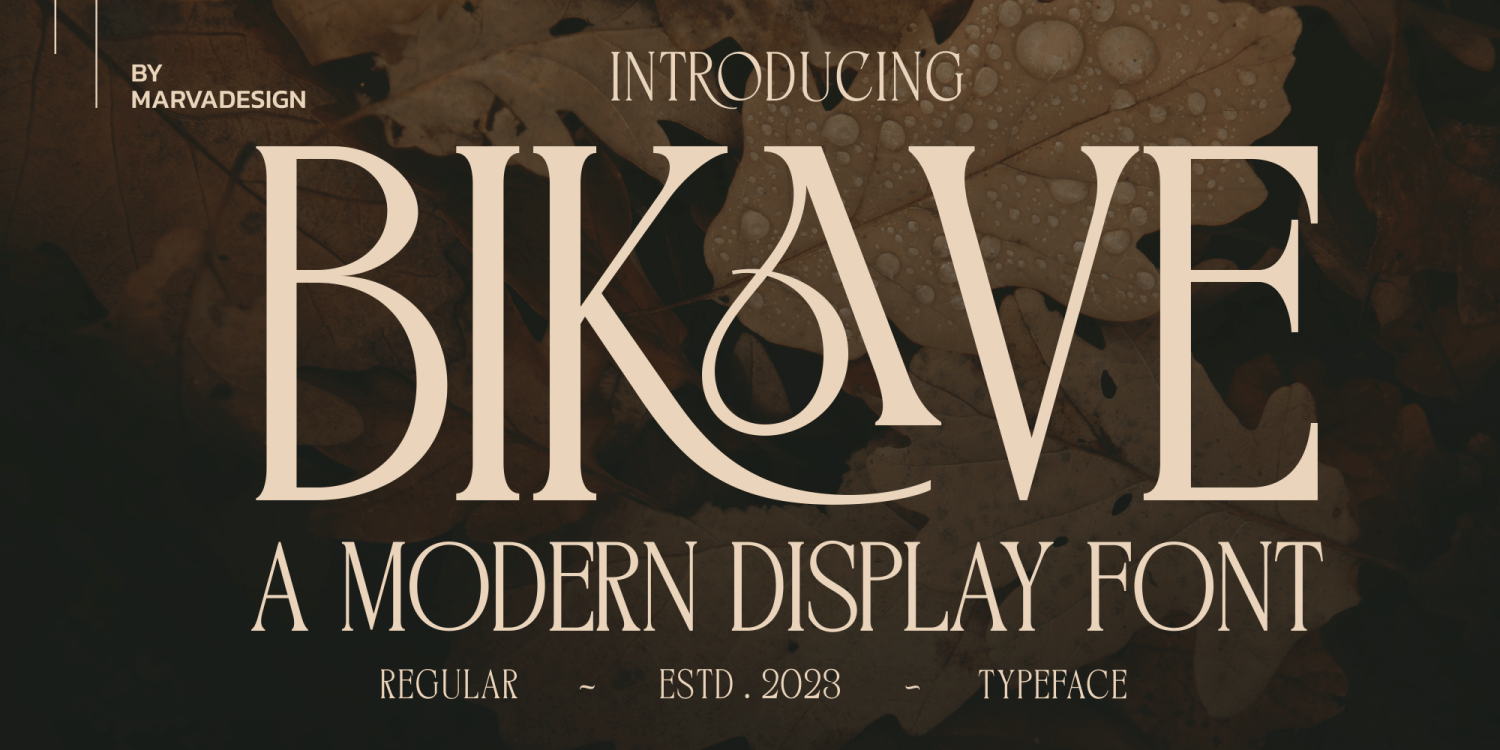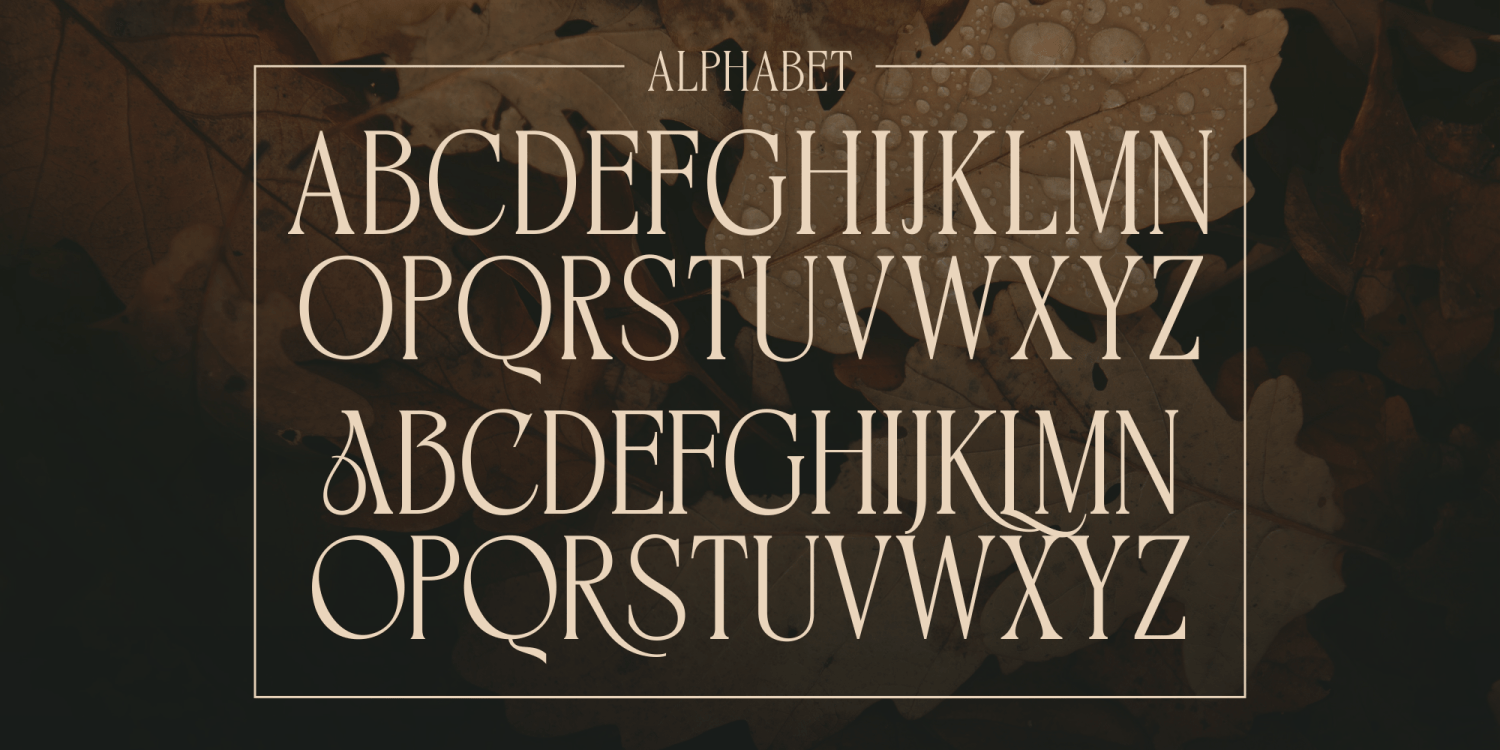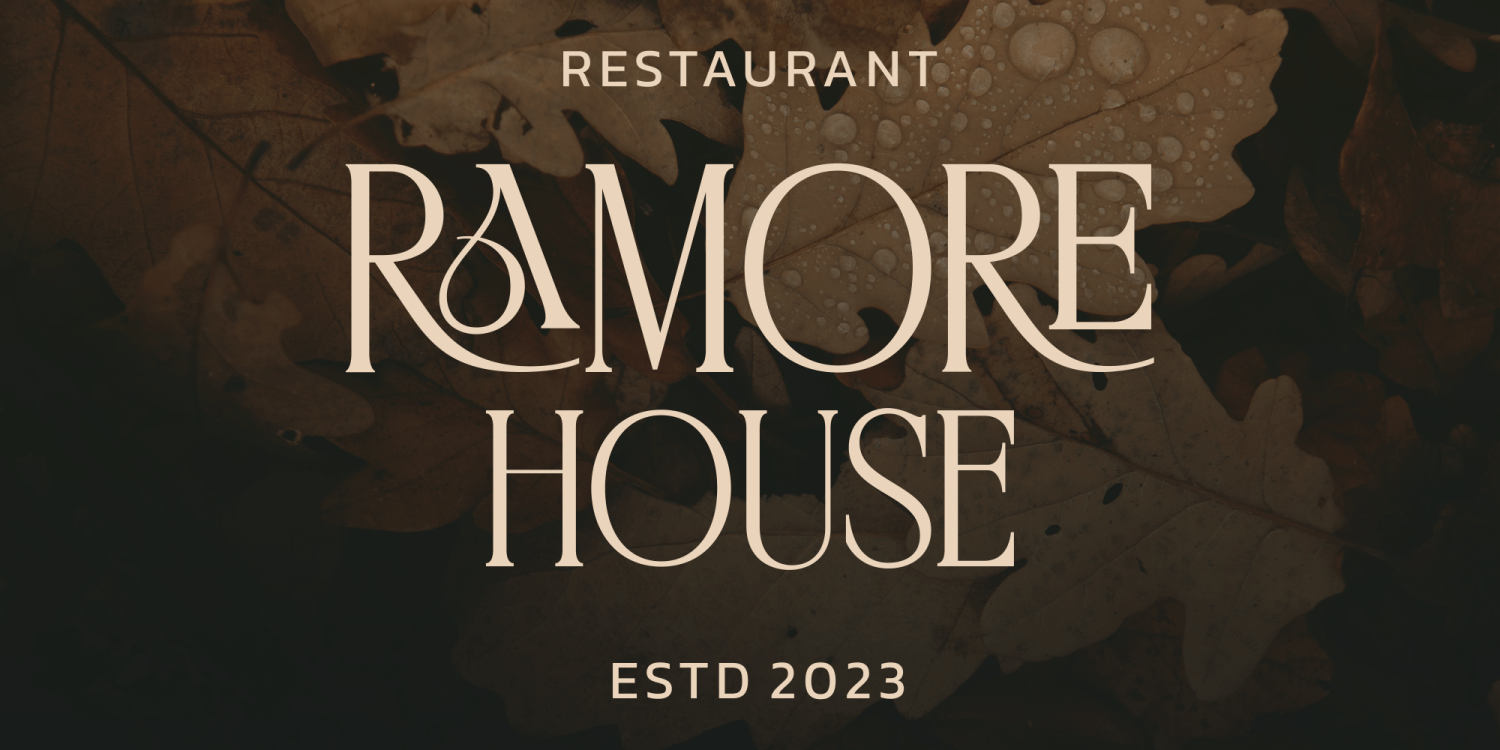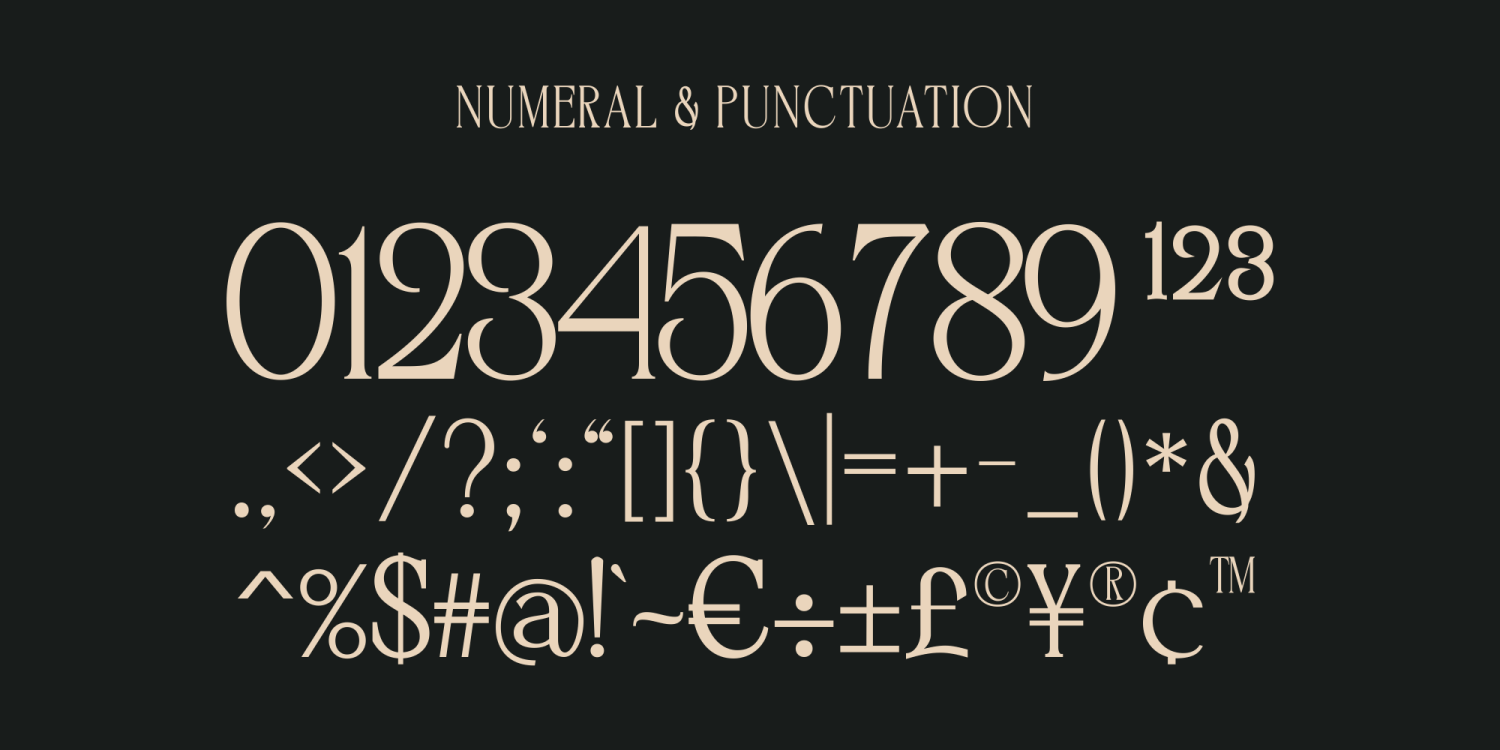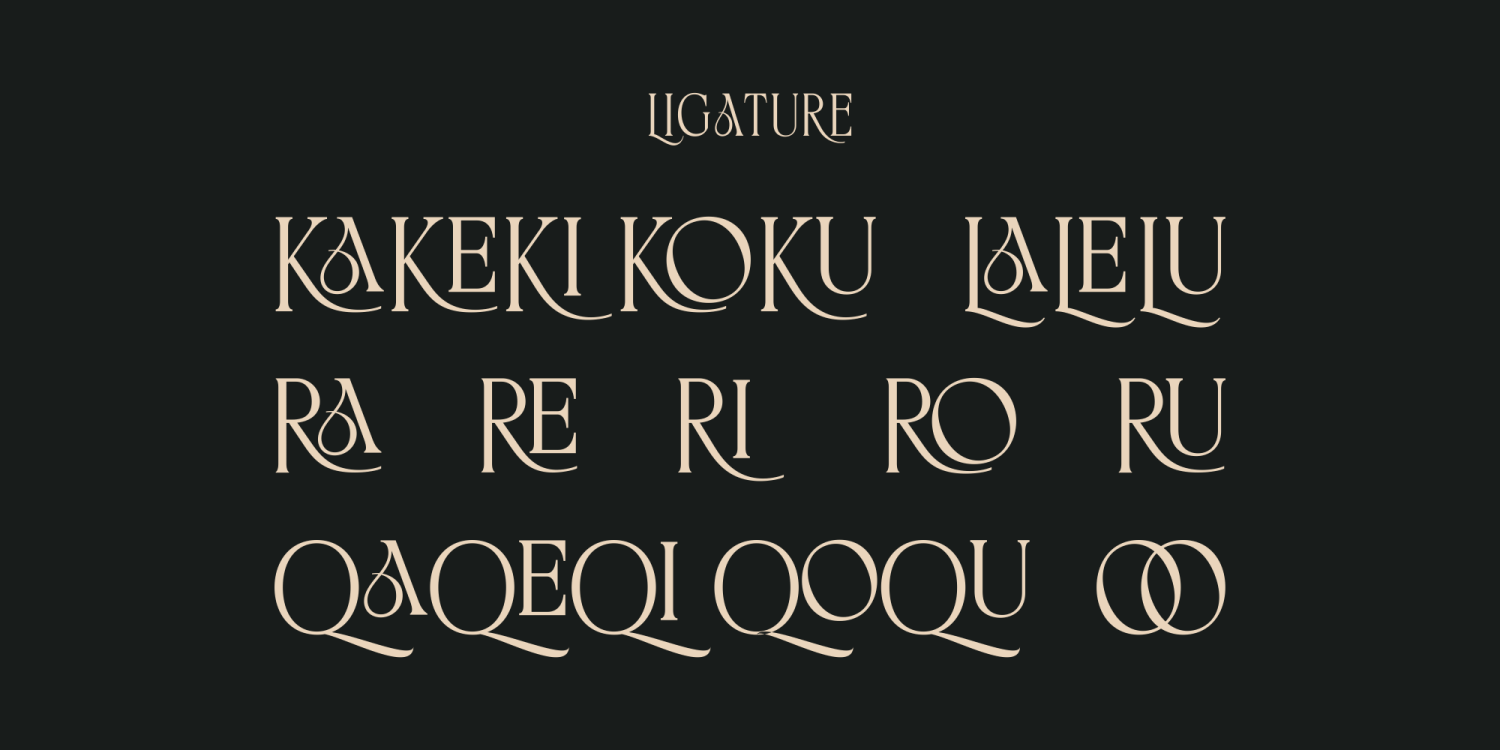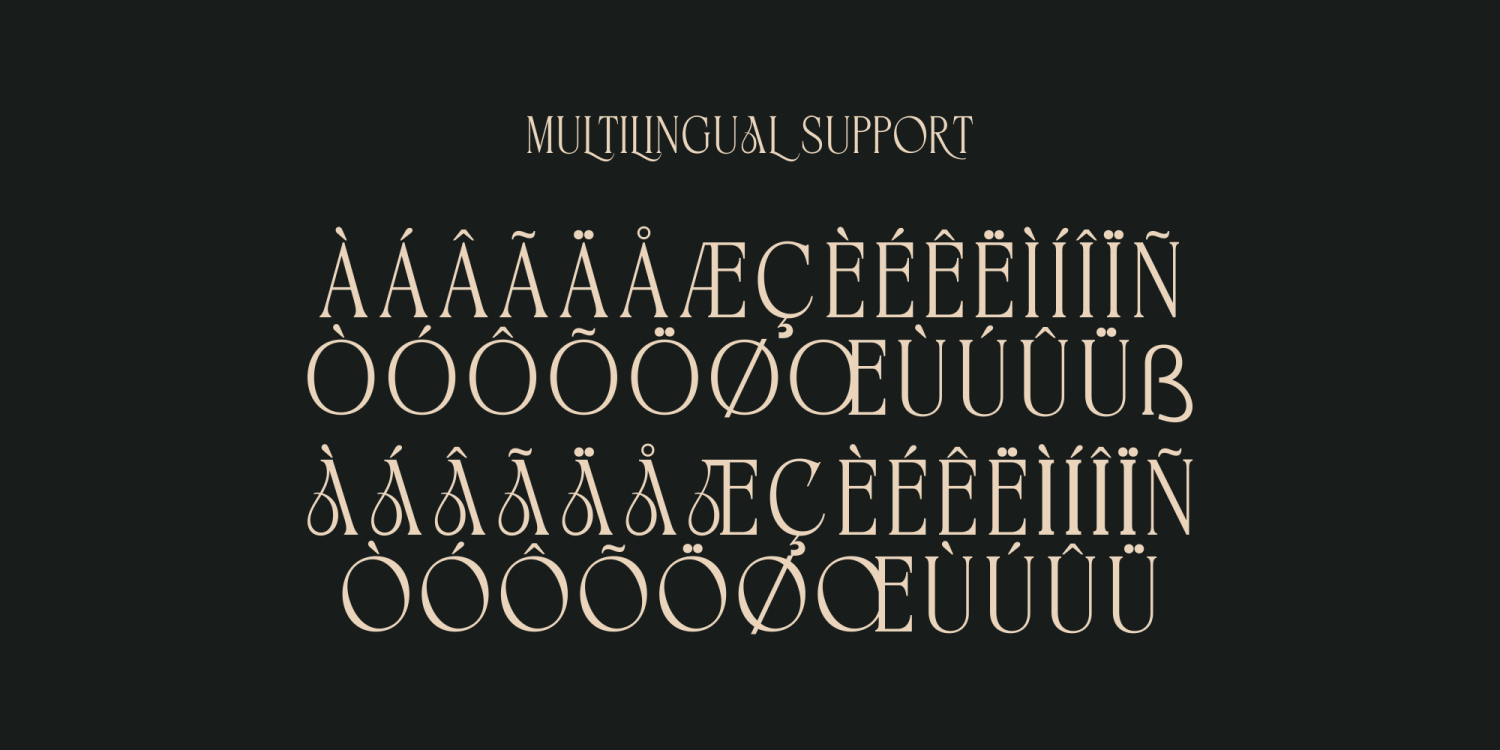
Bikave Regular
Font Family by Marvadesign
Introducing Bikave is an elegant serif minimalist font that exudes sophistication and refinement. Designed with a modern aesthetic, this typeface features clean lines and balanced proportions, making it ideal for high-end branding, editorial designs, and luxurious visual compositions.
Bikave comes equipped with a variety of decorative ligatures and alternative characters, adding a unique and artistic touch to your typography. These stylistic options allow for greater creativity and flexibility, enabling users to create visually captivating designs that stand out.